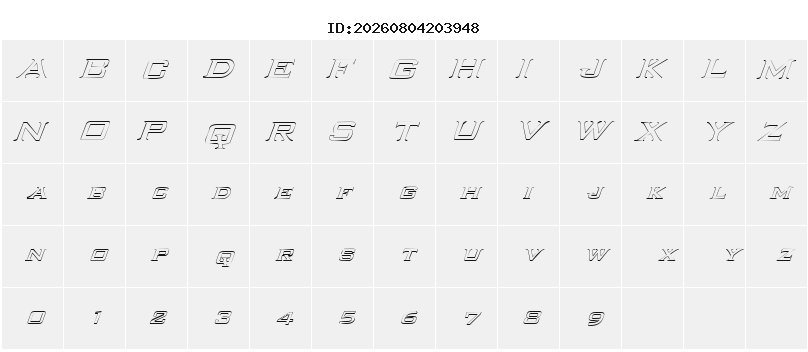
NewLifeHollowItalics Preview
• Font Name: NewLifeHollowItalics
• Full Font Name: NewLifeHollowItalics
About NewLifeHollowItalics.ttf
NewLifeHollowItalics.ttf is a modern, elegant sans-serif font designed for ultimate readability and visual harmony. Perfect for branding, headlines, web design, and print materials.